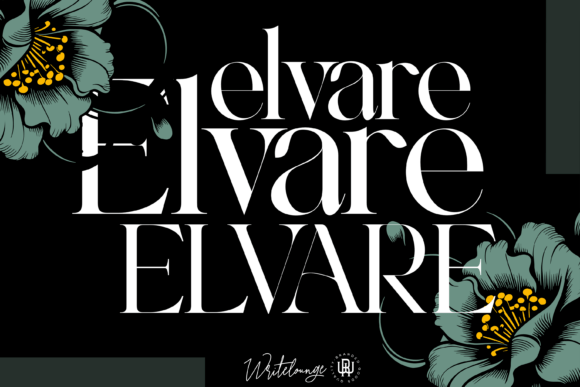
Elvare: A Luxury Serif Font for Elegant Digital Branding
Last week, I was finalizing the hero section of a boutique coaching website — soft ivory background, minimalist layout, just one strong headline and a subtle CTA button. The client wanted “timeless but not stuffy, bridal but not literal.” I opened my font library and dropped in Elvare. Instantly, the tone shifted: refined, intentional, quietly confident. Not flashy — just *settled*, like the design had taken a deep breath.
Elvare is a premium serif font built for display use — meaning it shines where impact matters most: headlines, hero titles, section headers, and branded visual moments. It’s not designed for paragraphs or dense UI labels. Instead, it brings editorial polish to digital spaces that benefit from quiet sophistication: wedding planners’ landing pages, ceramicists’ online shops, leadership coaches’ course sales pages, or independent publishers launching a new blog redesign.
Visually, Elvare balances high-contrast serifs with graceful letterforms — think delicate but structured, classic but contemporary. The uppercase ‘E’ has a subtle flare; the lowercase ‘a’ and ‘g’ carry gentle personality without veering into script territory. There’s no ornamentation for ornament’s sake. Every curve serves clarity and calm. On screen, it holds its shape beautifully at 32px and above — especially against light backgrounds or soft image overlays — but it needs breathing room. I tested it over a muted linen-textured banner and loved how it anchored the composition without competing.
In practice, I used Elvare for three key elements on that coaching site:
It worked because Elvare wasn’t asked to do too much. It handled emphasis, hierarchy, and emotional resonance — while letting the supporting sans serif (Inter, set at 16px) handle readability, scanning, and trust-building in body copy. That pairing is essential: Elvare sets the mood; your workhorse sans serif delivers the message.
Readability on mobile? Yes — but with care. At smaller sizes, Elvare’s fine serifs begin to soften on lower-DPI screens. I avoided using it below 24px on any device and never placed it directly over busy imagery without a subtle text shadow or semi-transparent overlay. On dark mode previews, I switched to Elvare’s medium weight with +0.5px letter-spacing — it preserved elegance without sacrificing legibility.
For branding consistency, Elvare works best when used sparingly and intentionally. Think of it as your brand’s signature — not its voice. On a portfolio site, it might appear only in the logo lockup and project titles. In an online shop for handmade stationery, it could define product category banners (“Wedding Suites”, “Custom Invitations”) while body text stays clean and functional. It’s not a font for navigation menus, form fields, or error messages — those need speed, neutrality, and universal recognition.
Where Elvare truly elevates a project is in perceived value. On a course sales page, it subtly signals craftsmanship — like the difference between a hand-bound journal and a spiral notebook. On a campaign landing page for a sustainable skincare launch, it reinforced authenticity and care without saying a word. It doesn’t scream “luxury”; it *embodies* it through restraint and proportion.
That said, it’s not universally appropriate. I wouldn’t reach for Elvare on a fintech dashboard, a developer documentation site, or a fast-paced e-commerce flash sale banner. Its strength lies in moments where users pause — where they’re choosing, reflecting, or connecting. It supports intentionality, not urgency.
Font pairing is where many designers stumble — and where Elvare rewards thoughtful choices. My go-to is pairing it with a neutral, highly readable sans serif: Inter, Manrope, or even system fonts like -apple-system for maximum performance. Avoid other serifs unless you’re building a deeply editorial experience (like a literary magazine site), and steer clear of decorative or script fonts nearby — Elvare doesn’t need competition. Let it breathe. Let it lead — then let the rest of the type system follow quietly.
If you're refining a digital brand kit, updating a portfolio homepage, or launching a new service page, ask yourself: *Where does this audience need to feel seen, trusted, and inspired — not just informed?* That’s where Elvare lives. Not everywhere. Just where it matters.